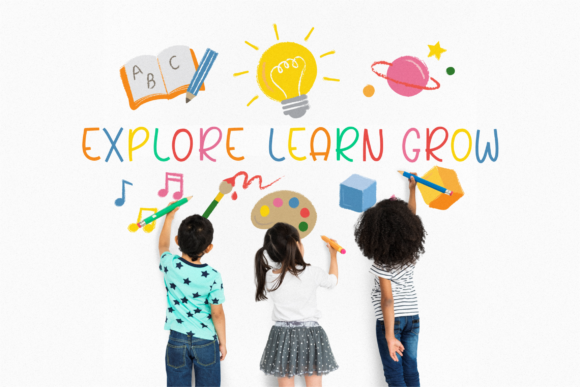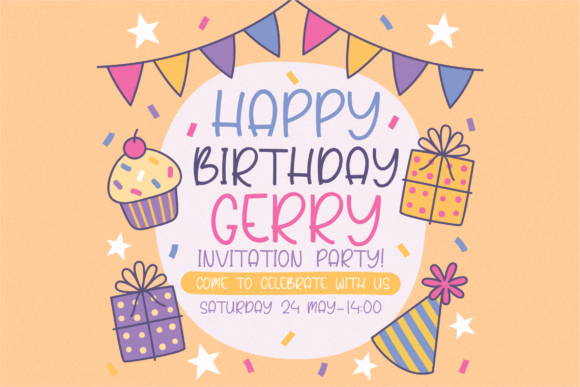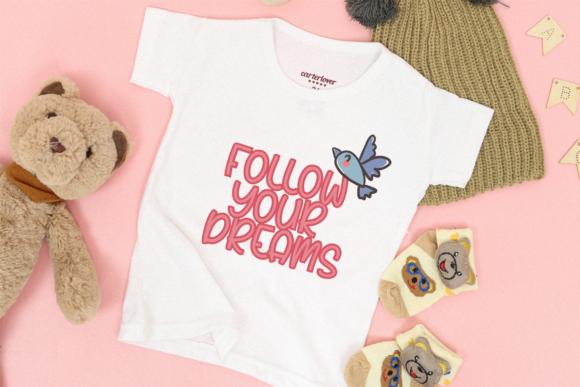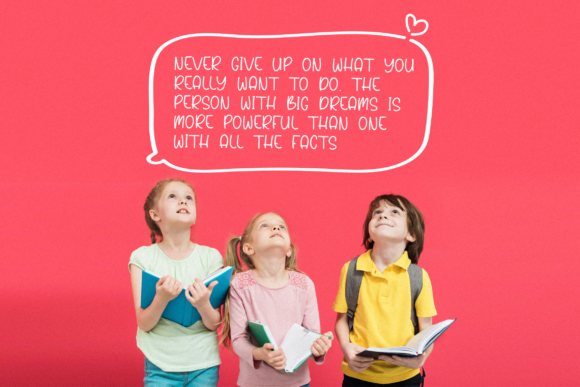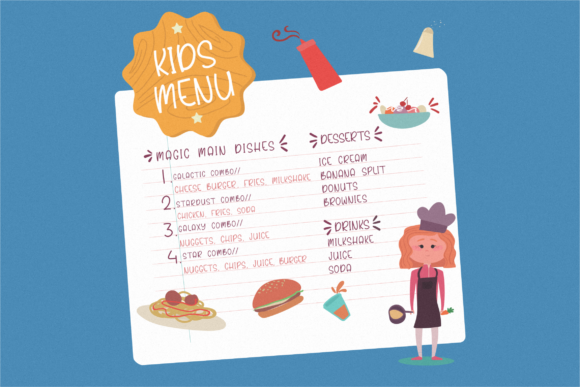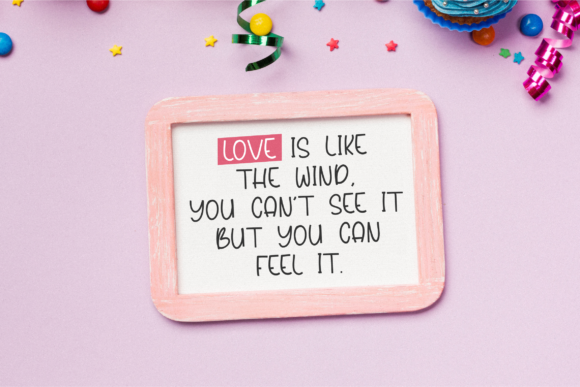
Introduction to Boomer Smooch Font
Boomer Smooch is a simple, quirky and adaptable handwritten font.
Its informal style and casual vibe will make this font a go-to choice for each of the creations that require a relaxed touch .
Boomer Smooch Font offers exceptional quality and versatility, making it a valuable addition to your design toolkit. Whether you’re creating for personal projects or commercial use, Boomer Smooch Font delivers professional results.